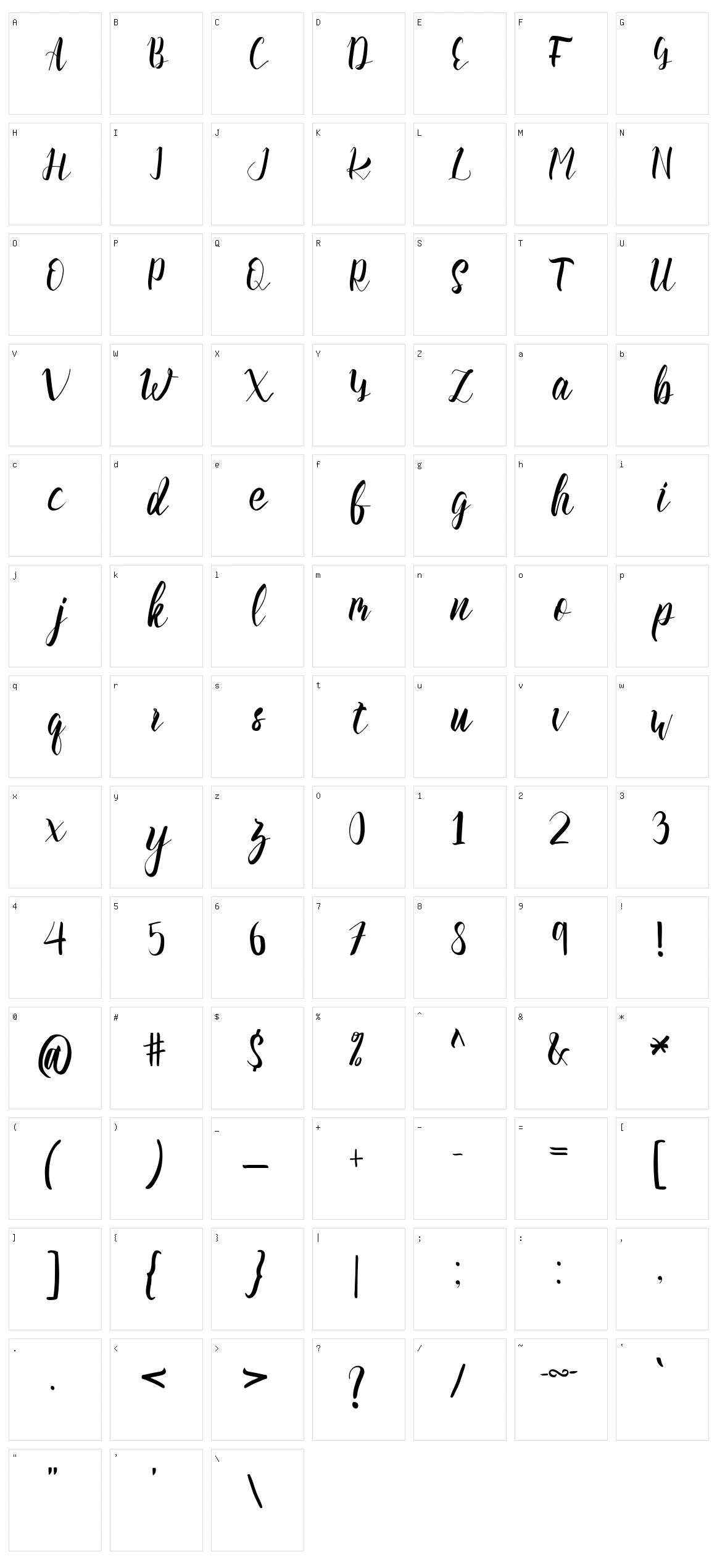
Slash Font is a fun bold handwriting font, fresh & modern style. Slash Font suitable for nameplate, logo, branding, greeting card, poster, book cover, and any design that you create.